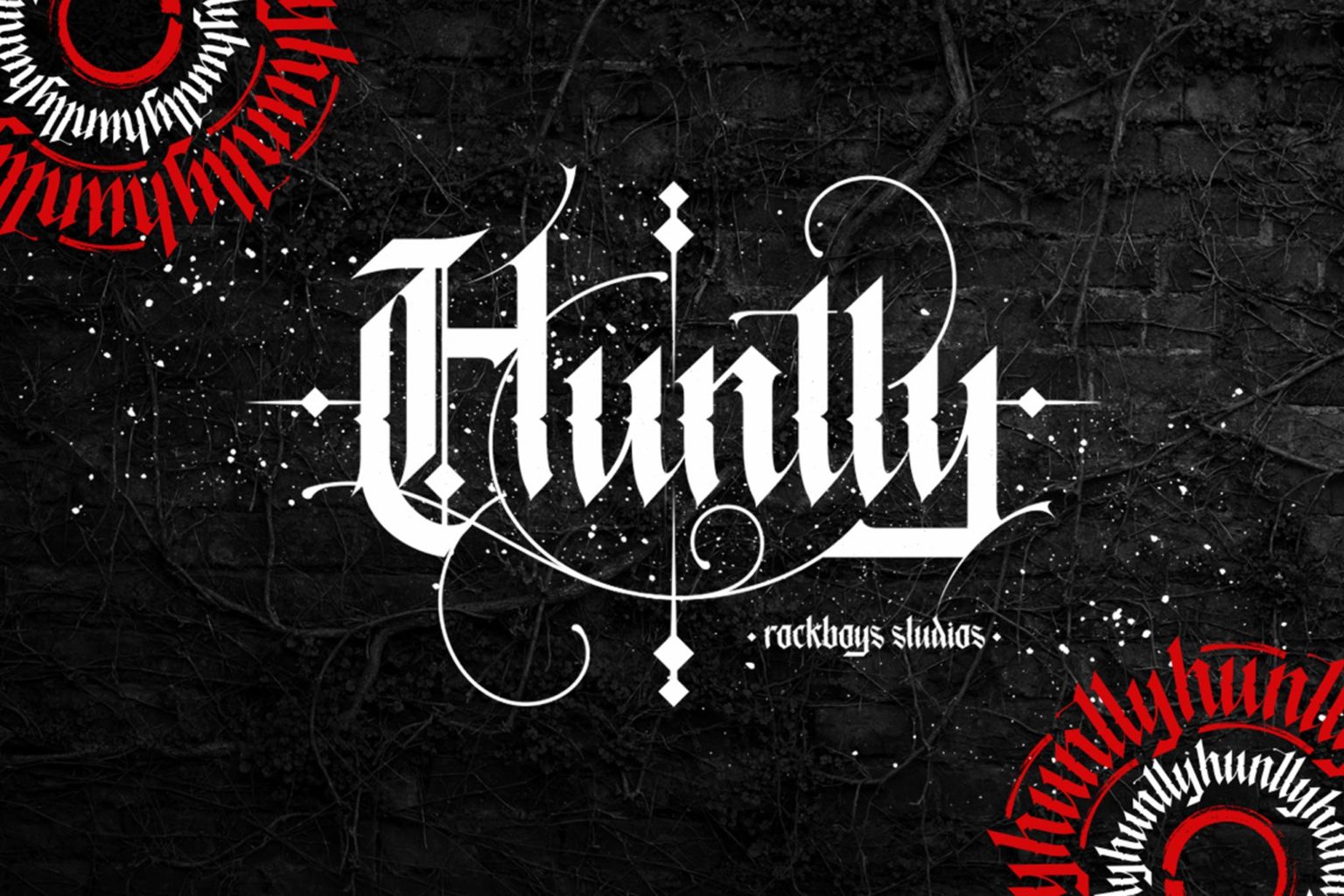
Blackletter Font Generator. Super cool unicode text magic. Fraktur, blackletter, old english, or gothic text is a style of text.
Blackletter fonts have letters that are very bold and ornate. It is a western calligraphy style that was used in europe from 1100s to the 1600s. Web discover and customize the font blackletter and other similar fonts, ready to share in facebook and twitter. Web blackletter font generator tool will let you convert simple and normal font style into your desired font. Blackletter is also known as old english or gothic. Once you click the generate button you’ll have a. Use gothic / blackletter / old english fonts on twitter, facebook, and more. Simply type or copy the normal text into the blank text field. Did you know that blackletter is a typeface that answers to. Web fraktur / gothic / old english.